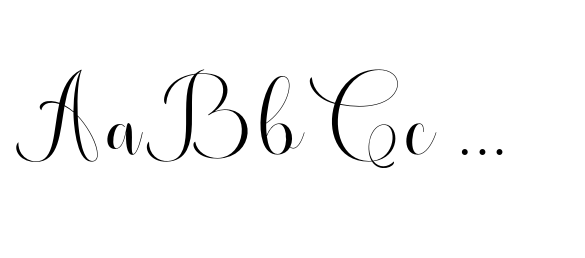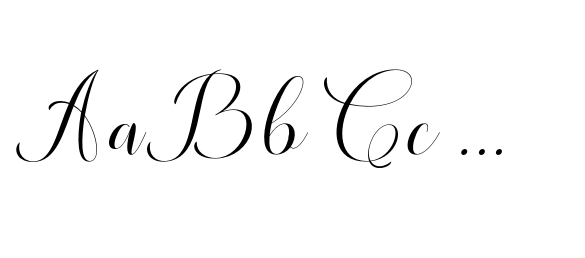
Emogdisa
by TM Type
The Emogdisa Font Family was designed by Teuku Bustami and published by TM Type. Emogdisa contains 2 styles and family package options. More about this family
Emogdisa is a very Beautiful, elegant and unique handwritten font. Expertly designed to become a true favorite, this font has the potential to take your creative ideas to the highest level!
Emogdisa is attractive because it is sleek, clean, feminine, sensual, glamorous, simple, and very easy to read, thanks to its many luxurious letter joints. I also offer a number of viable alternative styles for all letters. Classic style is very suitable to be applied in various formal forms such as invitations, labels, restaurant menus, logos, fashion, make up, stationery, novels, magazines, books, greeting cards/weddings, packaging, labels or all kinds of advertisements. for your purposes. . . . . . .